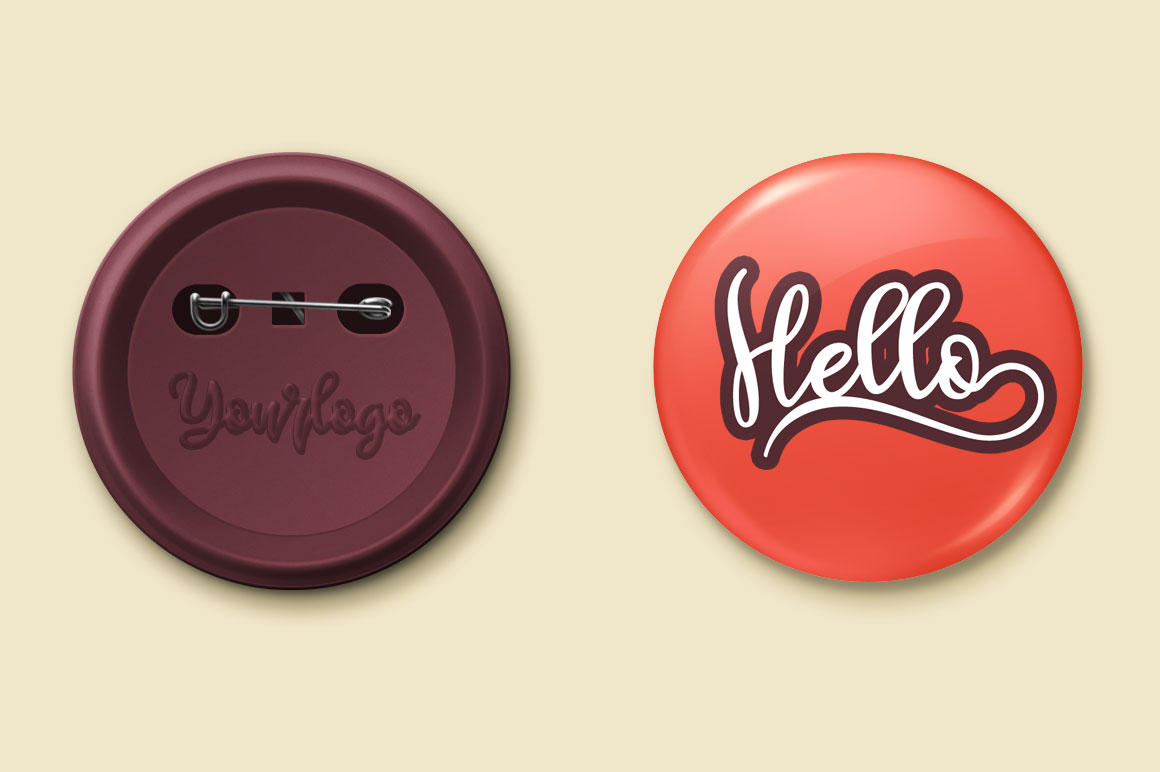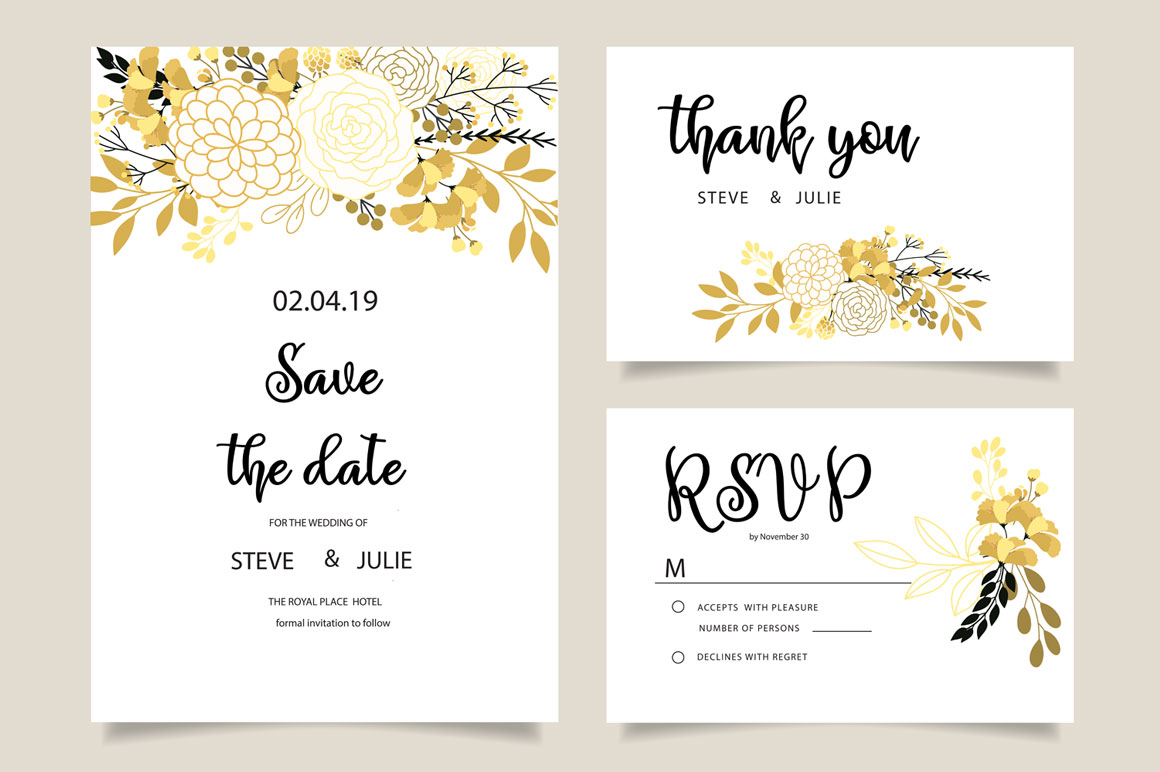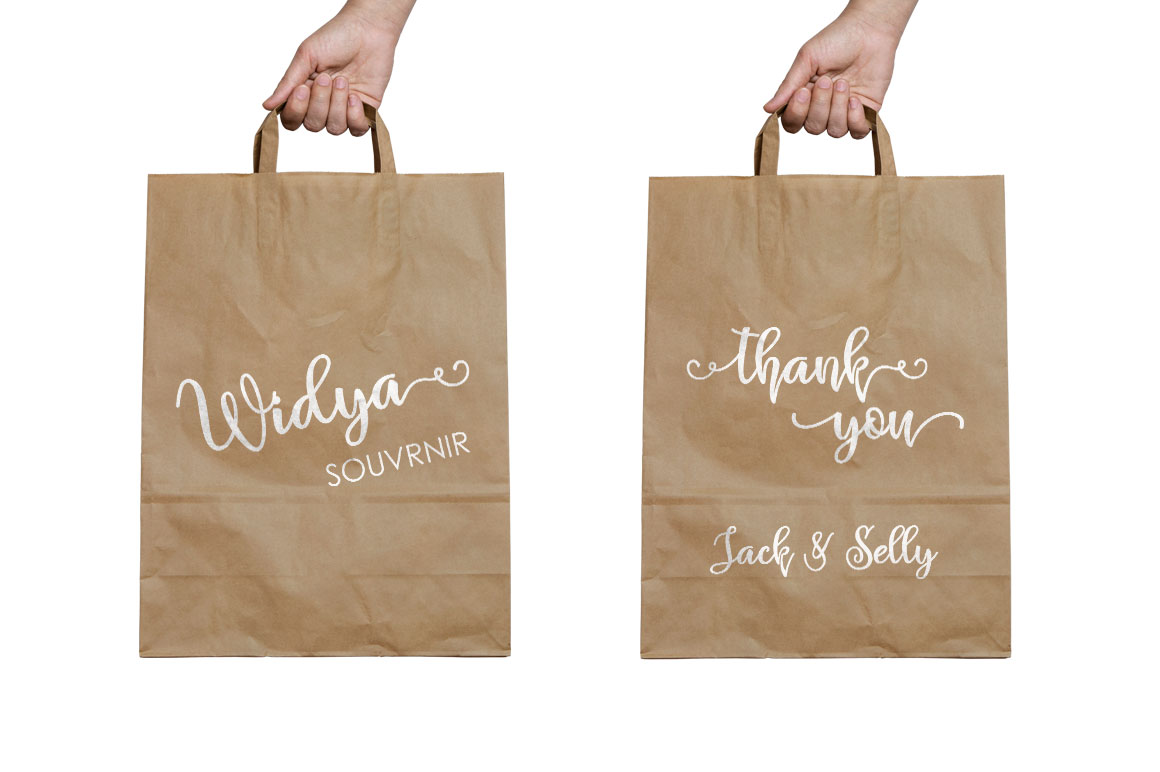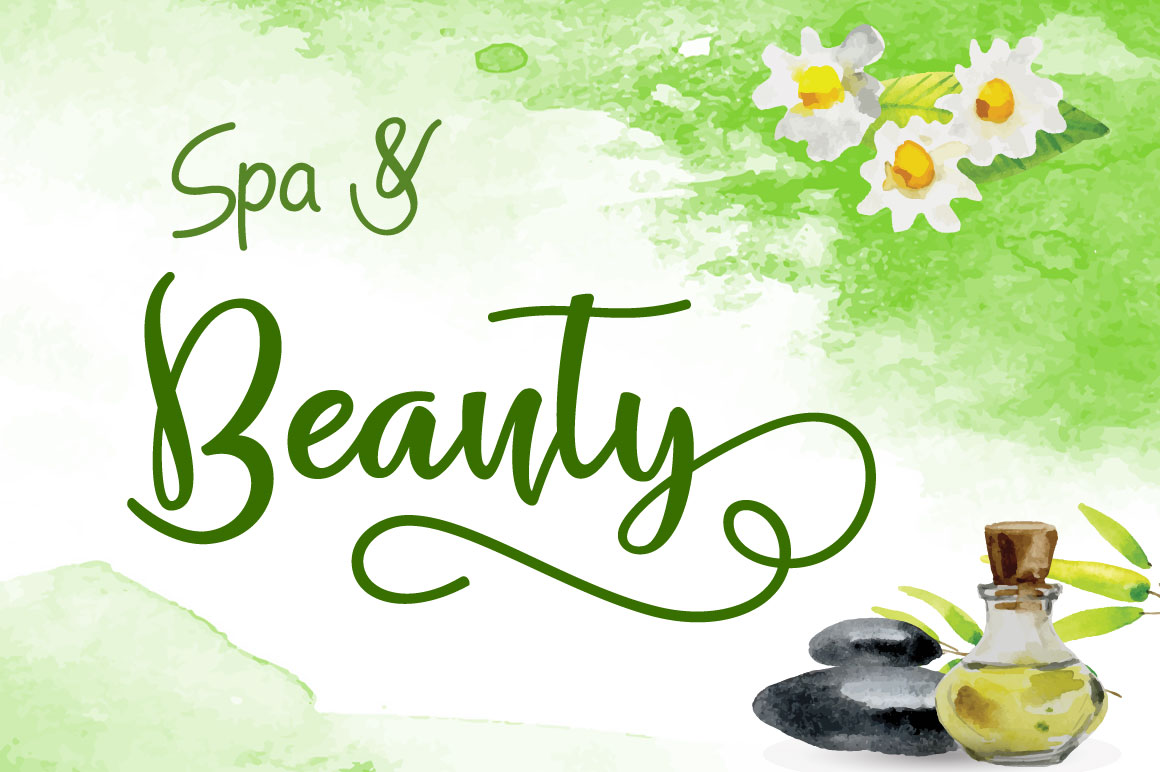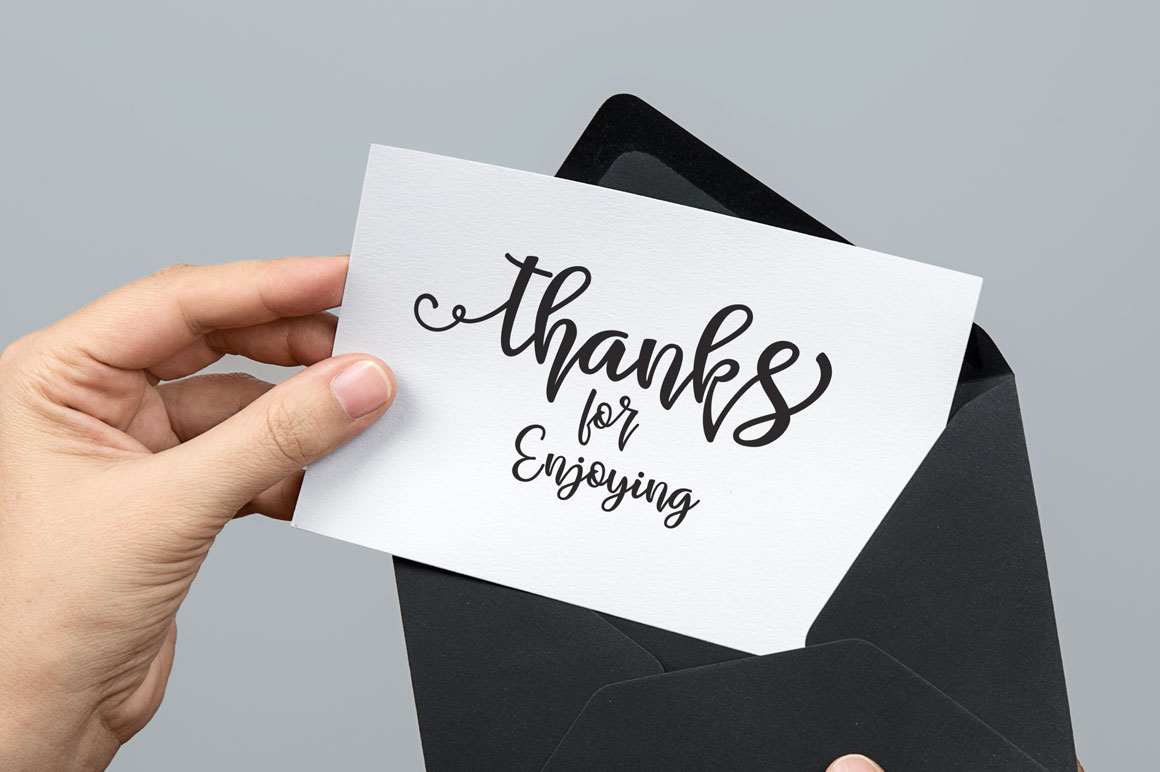
Shabira Font
About Shabira Font
Shabira is a hand-written typeface with a fun playful character. It has a flowing baseline, adding instant creativity to your projects.